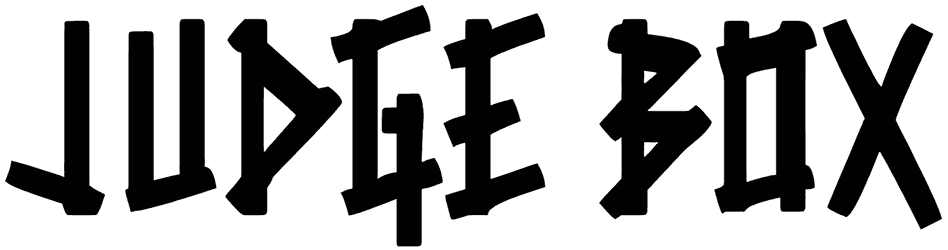
Judge Box Font
Let’s increase the level of adrenaline in your graphic content with the help of a tribal font such as Judge Box that carries a sense of dread, excitement, eeriness, and jauntiness.
Due to its sophisticated flow, it doesn’t have very good readability, but since this fancy font would boost the quality of movie posters, video game banners, photo editing, and labels, that deficiency won’t be a serious problem.